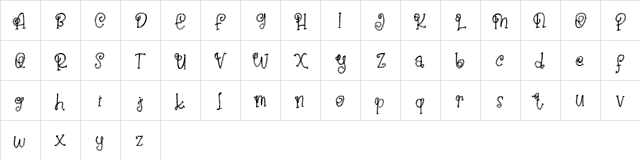
Rose Hips FREE Regular
Design Context for Rose Hips FREE Typeface
Rose Hips FREE is a composed and adaptable typeface that performs quietly and consistently across a wide range of design contexts.